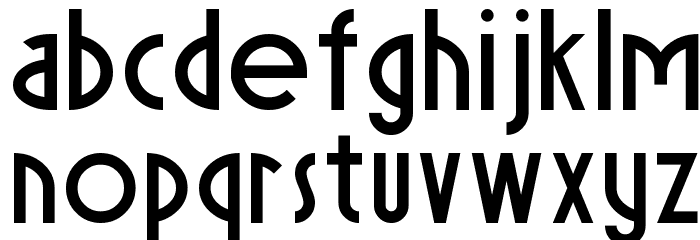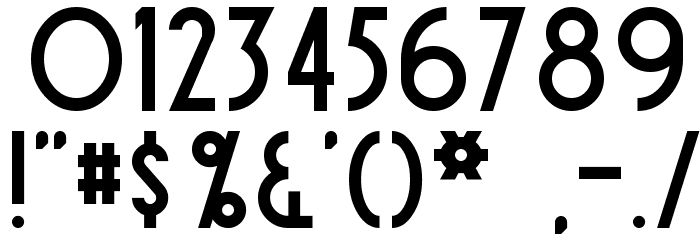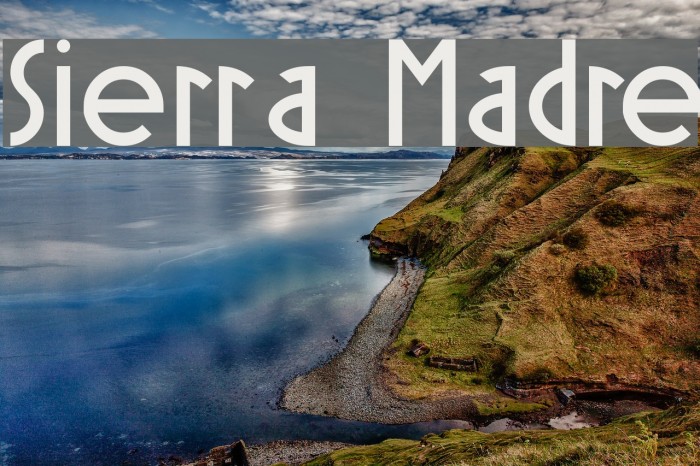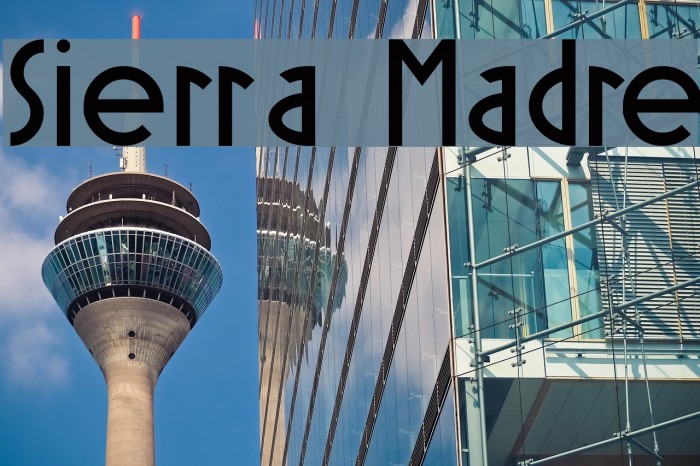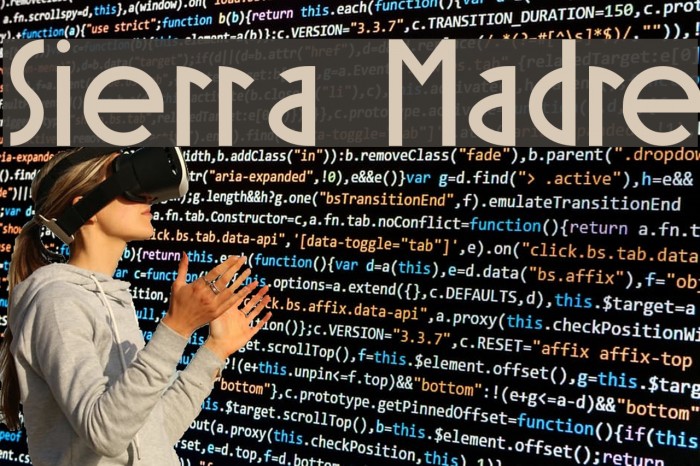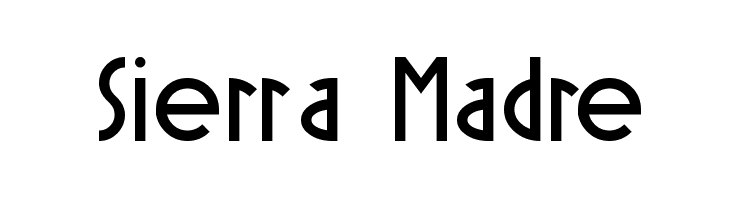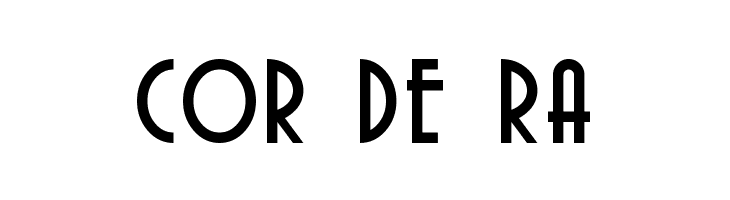
Sierra Madre Font
This font exhibits a unique blend of geometric and art deco influences, characterized by its bold and angular letterforms. The uppercase letters feature sharp, clean lines with a distinctively modern flair, while the lowercase letters maintain a consistent style that complements the uppercase. The numerals are equally bold and geometric, ensuring readability and a cohesive look. Special characters are designed with the same attention to detail, making them stand out while remaining harmonious with the rest of the font. The overall design is both striking and versatile, suitable for a variety of creative applications.
A bold, geometric font with art deco influences, featuring sharp, angular letterforms.
- Proposed Projects: Ideal for branding, posters, headlines, and any project requiring a modern, eye-catching typeface.